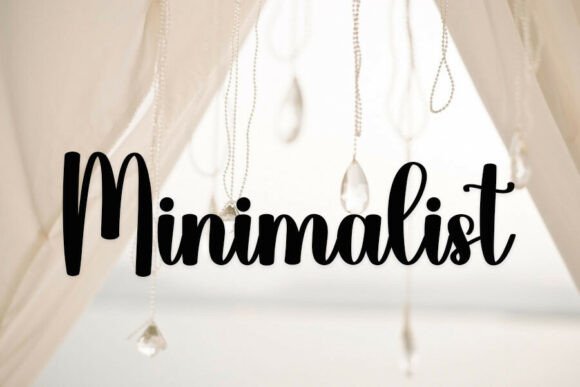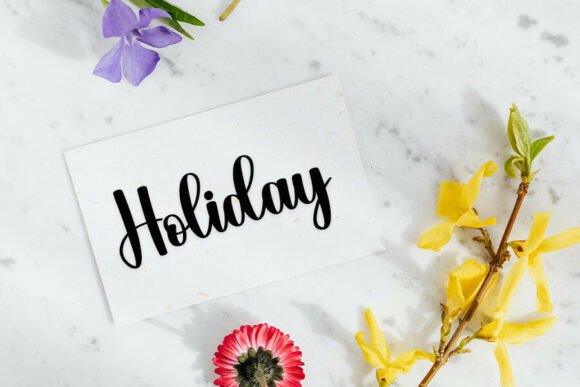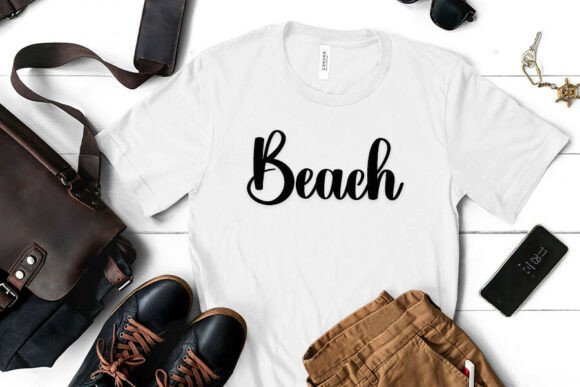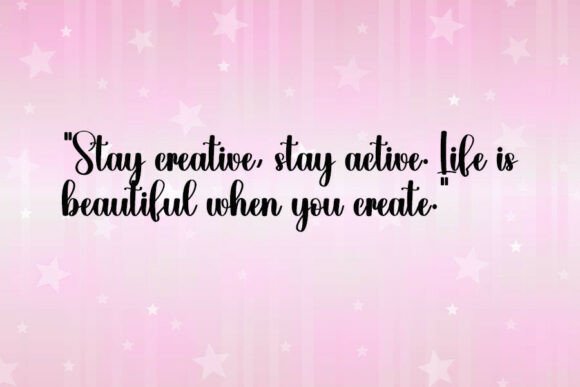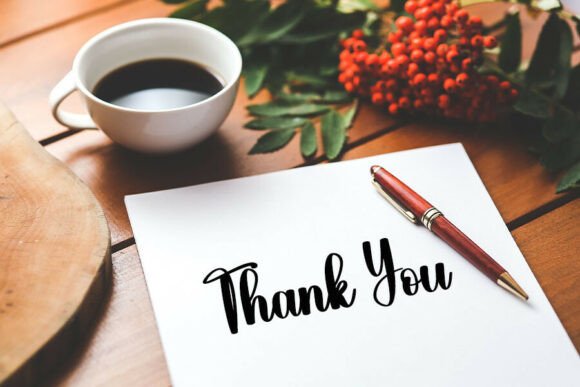
The Sweet Charm of Bubble Font: A Designer’s Delight
I still remember the time I was working on a wedding invitation project, and my client asked for a font that was both elegant and playful. I scoured the internet, trying out font after font, but nothing seemed quite right. That was until I stumbled upon Bubble Font. This sweet and cursive handwritten font instantly captured the essence of what my client was looking for. With its gentle curves and joyful vibe, Bubble Font added a romantic touch to the invitation that made it truly special.
An Honest Review of Bubble Font
• ✨ Sweet and playful vibe: Bubble Font has a unique charm that adds a touch of whimsy to any design.
• ✅ Elegant yet casual: This font strikes the perfect balance between sophistication and playfulness, making it suitable for a wide range of projects.
• 💕 Romantic and feminine: The cursive script and gentle curves of Bubble Font make it perfect for wedding-related designs, fashion branding, and more.
While Bubble Font is an amazing addition to any design project, there are a few things to keep in mind:
• 🤔 Limited use in body text: Due to its cursive nature, Bubble Font might not be the best choice for lengthy body text. It’s better suited for headings, titles, or short paragraphs.
• ⚠️ Requires attention to spacing: As with any script font, it’s essential to adjust the spacing between letters to ensure optimal readability.
The Designer Inspiration Behind Bubble Font
Bubble Font was designed with the intention of capturing the essence of a sweet and playful handwritten script. The designer aimed to create a font that would evoke feelings of joy, romance, and whimsy. Inspired by classic script fonts and modern calligraphy, Bubble Font is a unique blend of elegance and playfulness.
Q: What type of projects is Bubble Font best suited for?
A: Bubble Font is perfect for branding, logos, wedding designs, greeting cards, fashion, lookbooks, marketing promotions, and any project that requires a touch of elegance and playfulness.
Q: Is Bubble Font available in different weights or styles?
A: Bubble Font may come in different weights or styles, such as regular, bold, or italic. Please check the font package or documentation for more information.